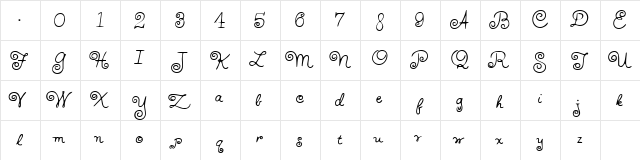
HFF Whirly Whorl Regular
Design Context for HFF Whirly Whorl Typeface
HFF Whirly Whorl is a composed and adaptable typeface that performs quietly and consistently across a wide range of design contexts.